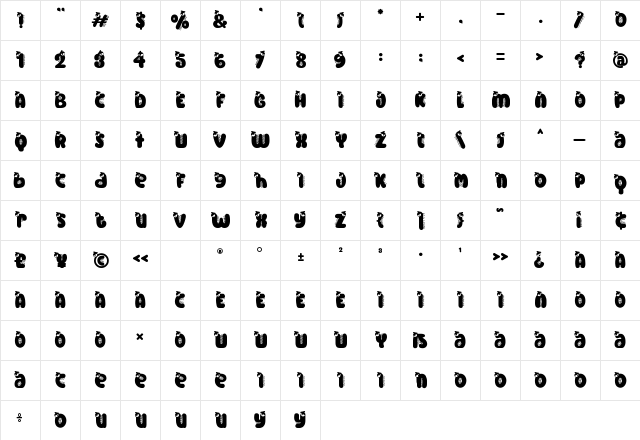
Monster Mash Monster 2 Regular
Foundry: Putracetol Studio, Karanganyar.
Designer: Putra Novembria Candra Kusuma
Design Context for Monster Mash Monster 2
Monster Mash Monster 2 is a composed and adaptable typeface that performs quietly and consistently across a wide range of design contexts.